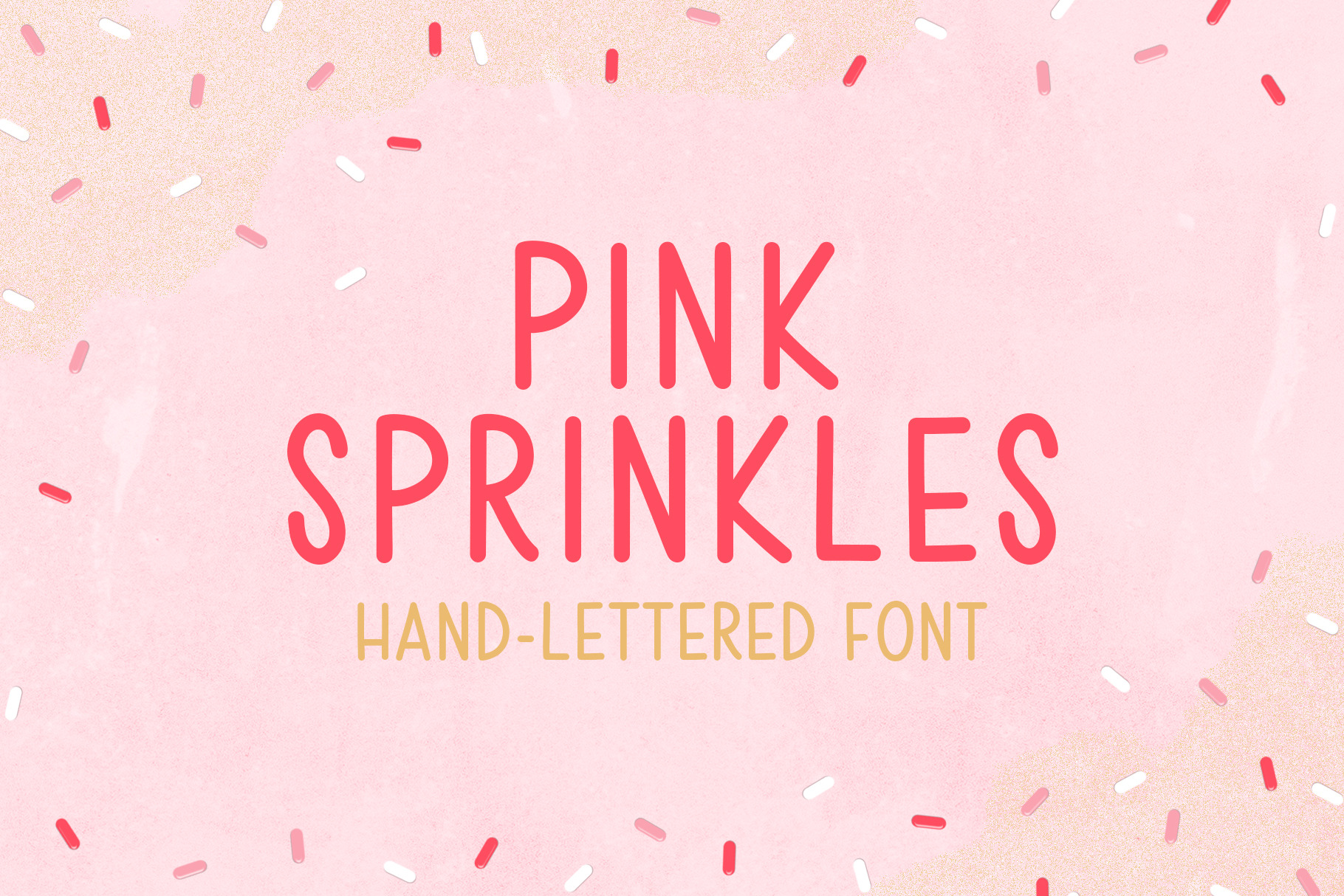
Pink Sprinkles is a casual font with authentic hand-lettered quirks. Its laid-back vibe is versatile enough for use in everything from children's products to packaging, social media and more!